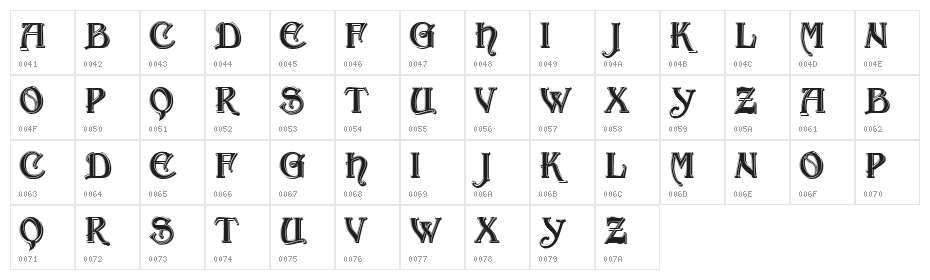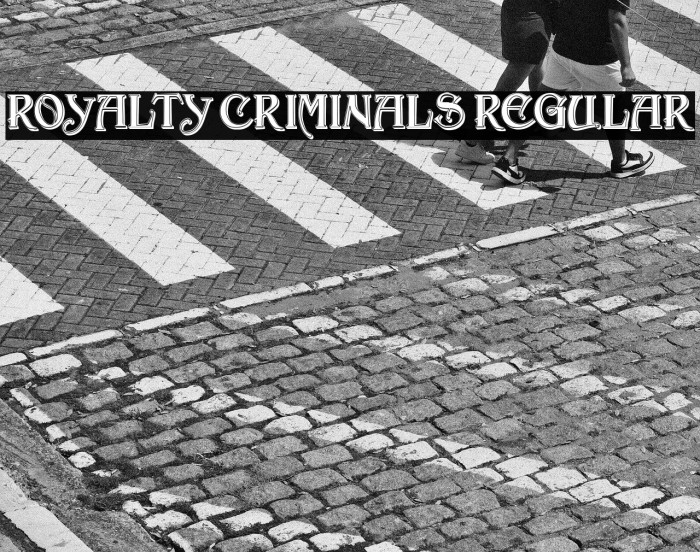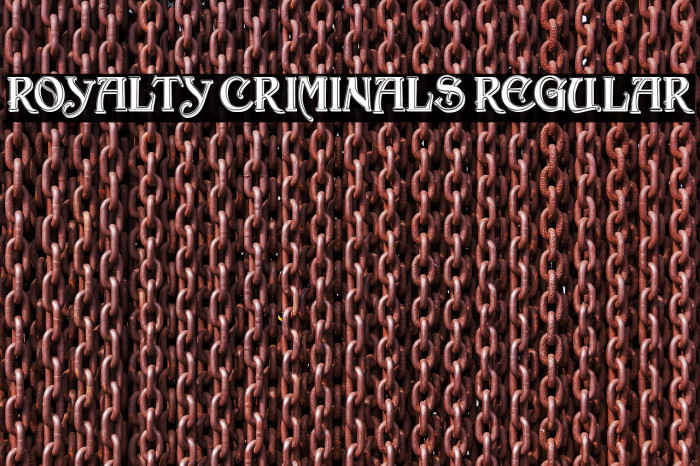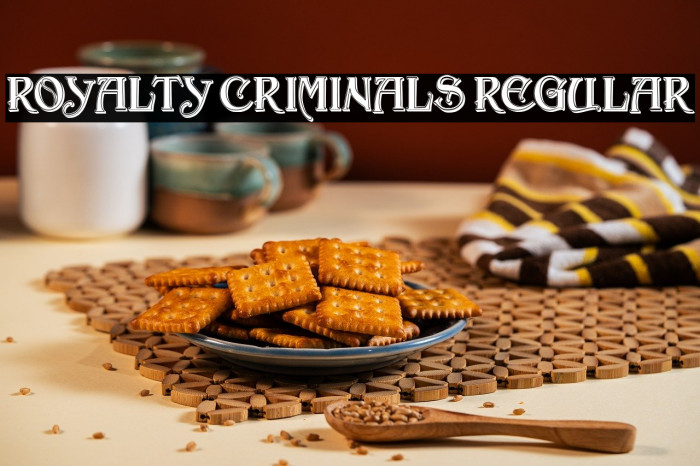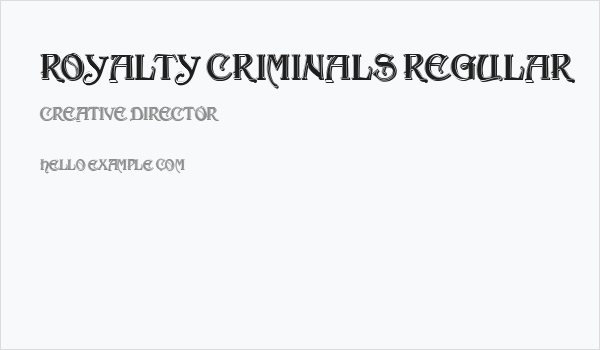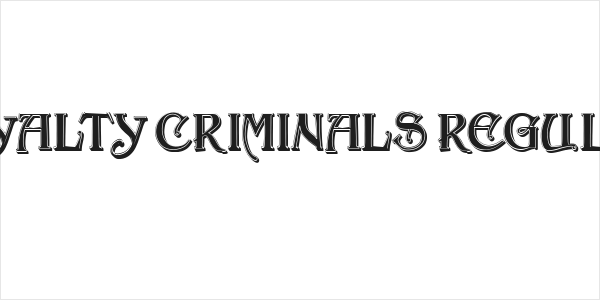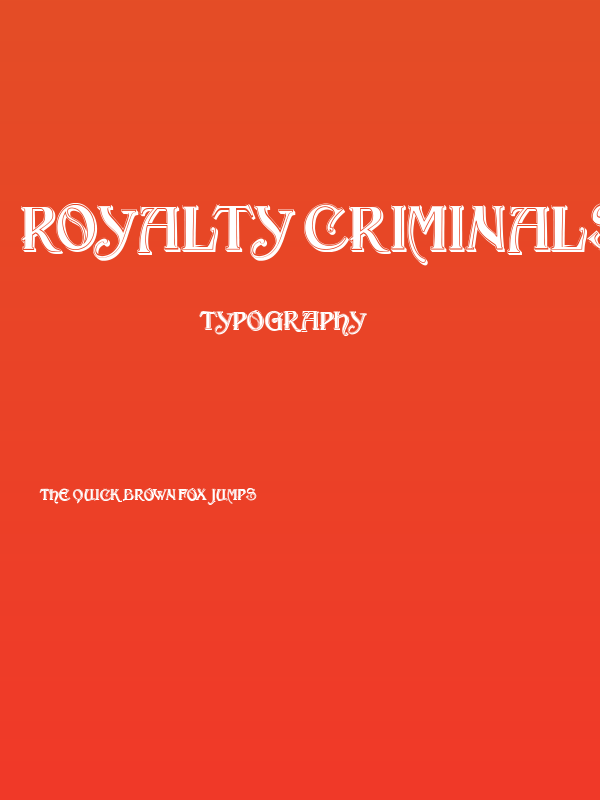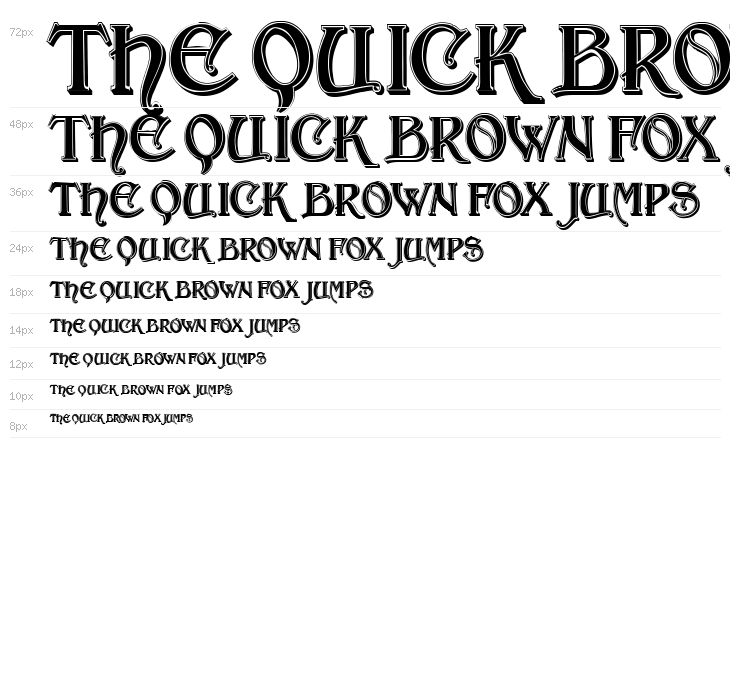
Royalty Criminals Regular Font
Royalty Criminals Regular Description
This font features a bold and decorative style with intricate details reminiscent of medieval script. The characters are adorned with sharp serifs and elaborate curves, giving them a regal and authoritative appearance. The strokes are thick, with a high contrast between the main lines and the finer details, creating a striking visual impact. The overall design is both ornate and structured, making it suitable for projects that require a touch of elegance and historical flair.
| Proposed Projects | Ideal for use in branding, logos, book covers, posters, and any design that seeks to convey a sense of history or grandeur. |